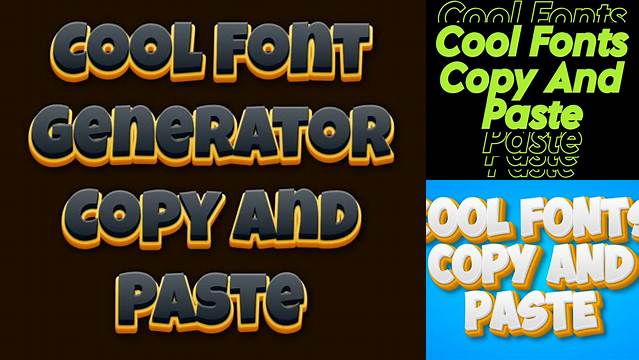
Creative Fonts Copy & Paste: Your Ultimate Guide
Hey guys, are you ready to spice up your text game? We're diving headfirst into the awesome world of creative fonts copy and paste! Forget boring, standard fonts – we're talking about transforming your words into visual masterpieces with just a few clicks. Whether you're a social media guru, a graphic design enthusiast, or just someone who loves to add a little flair to their messages, this is your ultimate guide. Get ready to discover how easy it is to copy and paste your way to font-tastic creations. Let's get started!
1. Unveiling the Magic: What are Creative Fonts and Why Use Them?
So, what exactly are creative fonts? Think of them as the superheroes of the typography world. They go beyond the basic Arial and Times New Roman, offering a diverse range of styles from elegant calligraphy to quirky, handwritten looks. These fonts are designed to capture attention, express personality, and make your text pop! Why bother with them? Because, in today's visually driven world, standing out is everything. Using creative fonts ensures your message doesn't get lost in the noise. They instantly add a layer of professionalism, playfulness, or artistry, depending on the style you choose. It is all about communicating on a deeper level by engaging visually and making your content stick in the audience's mind. The beauty of creative fonts lies in their ability to adapt to different contexts. They're perfect for social media posts, where you want to grab a user's attention as they scroll. They're excellent for graphic design projects, where you need a unique look for a logo or poster. And, they can even bring a personalized touch to your everyday emails and documents. Furthermore, creative fonts give you an opportunity to express your unique personality. You can choose fonts that match your mood, your brand's aesthetic, or the overall tone of your message. A playful font might suit a fun blog post, while a sophisticated font can elevate a professional presentation. The possibilities are nearly endless, and that is why they are so good.
Beyond aesthetics, creative fonts offer functional benefits, too. They can improve readability, particularly in headings and titles. Well-chosen fonts can guide the reader's eye, making your content easier to digest. They can also enhance the overall user experience by creating a cohesive and visually appealing design. The strategic use of fonts helps in building brand recognition, as consistent font choices become synonymous with your brand's identity. Plus, creative fonts can evoke emotions. The right font can convey a sense of trustworthiness, excitement, or even nostalgia. It adds depth and meaning to your message, allowing you to connect with your audience on a deeper level. Choosing the right fonts depends on understanding your target audience and the message you wish to convey. You should consider legibility, style, and how the font will look in different contexts. When used effectively, these fonts are not just decorations, they are powerful communication tools. Ultimately, creative fonts are more than just a stylistic choice. They're a way to communicate with impact, express yourself, and create a lasting impression. They are a vital element in the modern design landscape, which is why it is so important to understand them.
1.1. Exploring the World of Font Styles: From Calligraphy to Quirky
Alright, let's get into the fun stuff – the different styles of creative fonts! The world of fonts is vast, like a delicious buffet, offering everything from delicate calligraphy to bold, quirky designs. Knowing these styles will help you choose the perfect font for any project. First up, we have calligraphy fonts. These fonts mimic the art of beautiful handwriting, often featuring elegant strokes and flourishes. They're perfect for invitations, wedding announcements, or any project that needs a touch of sophistication and grace. Next, we have script fonts, which are similar to calligraphy but can vary greatly in style, from casual handwriting to more formal scripts. They're great for adding a personal touch and are widely used in logos, signatures, and branding materials. Then, there are the serif fonts, which are known for their small decorative strokes at the ends of each letter. These fonts are traditional and classic, often used in body text because they enhance readability. Think of fonts like Times New Roman or Garamond. On the other hand, we have sans-serif fonts. They lack the decorative strokes, giving them a clean and modern look. These fonts are extremely versatile and are ideal for digital designs, headings, and anything that requires a clear, crisp appearance. Arial and Helvetica are common examples. Now, let's go quirky! Display fonts are the showstoppers. They are designed to grab attention and are usually used for headlines, titles, and short bursts of text. They come in a wide variety of styles, from bold and chunky to artistic and unconventional. Finally, we've got the handwritten fonts. They replicate the look of handwriting, making them perfect for a personal, informal feel. They're excellent for adding authenticity to designs, be it a blog header or a social media post. The right font style can transform your project from bland to brilliant, so experiment and have fun!
1.2. Benefits of Using Creative Fonts in Your Designs
Using creative fonts is like giving your designs a superpower. They can transform the look and feel of anything you're working on. Let's dive into the amazing benefits. First, they improve visual appeal, instantly making your content more engaging. A well-chosen font can make your text more attractive, drawing the reader's eye and encouraging them to read on. Second, these fonts enhance brand identity. Consistent use of specific fonts helps establish your brand's personality and make it recognizable. Think of how certain fonts are associated with popular brands; it's powerful. Third, they increase readability. The correct font choice can make your text easier to read, especially in headings and titles. This ensures that your message is understood quickly and clearly. They also help with expressiveness. Fonts are a fantastic way to convey emotions and create a certain mood or tone. The right font can evoke feelings, making your content more relatable. They create a sense of uniqueness. Using unique fonts differentiates your work from others, making it stand out from the crowd. They make your content more professional. Certain fonts lend an air of professionalism and sophistication. This is super important for business-related content. They help with better communication. Fonts can help to clearly communicate your message, ensuring that your audience understands your content. They boost engagement. Fonts can make your content more interactive. They can draw the reader in and keep them engaged. Additionally, creative fonts can boost the effectiveness of your marketing efforts. By using the right fonts, you'll improve your click-through rates and conversions. This is because the use of unique fonts increases your brand's memorability. With the correct use of fonts, you can improve your overall impact.
2. The Copy-Paste Method: Your Quick Guide to Font Magic
So, how do you actually use creative fonts? The beauty of the copy-paste method lies in its simplicity. You find the font you love, copy the text, and paste it wherever you want. Let's break down the process. First, you need to find a creative font generator. There are loads of free online tools that convert standard text into fancy fonts. Do a quick search, and you'll find options for all kinds of font styles. When you find the perfect font, type your text into the generator. The tool will instantly transform your text into the selected font. Now, simply copy the formatted text. Most generators have a handy